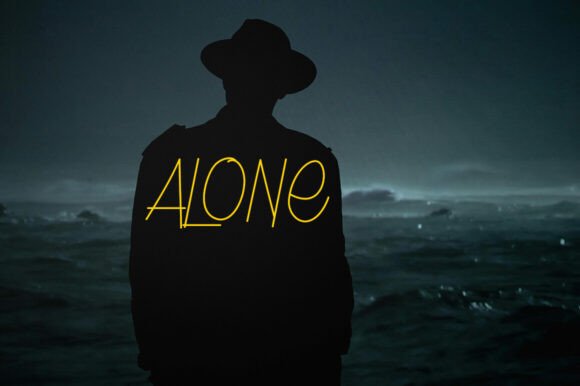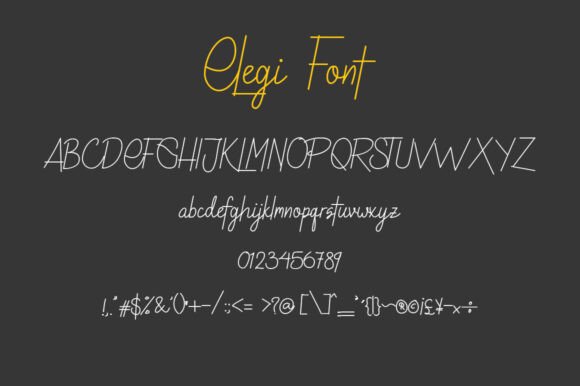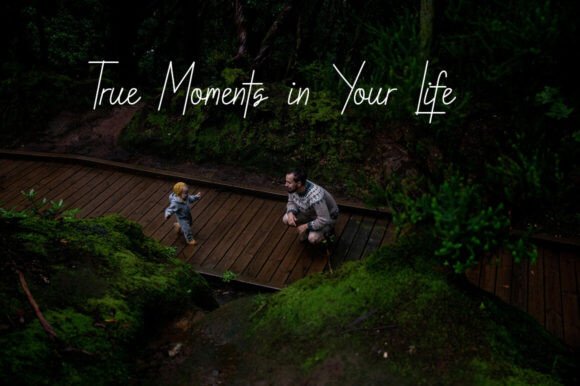
Introduction to Elegi Font
Have you ever found yourself stuck in a creative rut, searching for the perfect font to elevate your design project? I know I have. The struggle is real, but the solution is often just a font away. For designers, finding the right font can be the difference between a good design and a great one. And that’s where Elegi Font comes in – a charming handwritten font that’s about to become your new go-to.
With its effortless flow and elegant simplicity, Elegi Font is the perfect addition to any creative project. Whether you’re crafting greeting cards, logos, journaling pages, or social media posts, this font adds a touch of sophistication while maintaining a friendly and approachable feel. What’s more, Elegi Font is available for a free download, making it an invaluable design resource for designers of all levels.
- Elegi Font is a high-quality design resource ideal for creative projects that require a touch of elegance and sophistication.
- Elegi Font features a unique, cursive script style with a moderate size, ideal for use in titles, headings, and body text at 12-24 points.
Honest Review: Elegi Font
As a designer, I’m always on the lookout for high-quality fonts that can elevate my creative projects. Recently, I came across the Elegi Font, and I’m excited to share my thoughts on this design resource.
- ✨ Elegant and sophisticated design aesthetic that’s perfect for luxury brands or high-end creative projects.
- ✨ Clean and minimalist design that’s easy to read and versatile in its applications.
- ⚠️ Limited character set, which may not be suitable for projects that require a wide range of characters.
- ⚠️ May not be as customizable as some other fonts, which could be a drawback for designers who want to add their own unique touch.
Overall, I’m impressed with the Elegi Font’s high quality and elegant design aesthetic. While it may have some limitations, it’s a great resource for designers who are looking for a sophisticated and professional font to elevate their creative projects. With a transparent background and free download option, it’s definitely worth considering for your next design project.
The Elegi Font is a high-quality design resource ideal for various creative projects, including business cards, logos, and brochures. Its transparent background makes it easy to customize and overlay on different images.
The Elegi Font is commonly used for:
Business cards and logos
Brochures and flyers
Social media posts and graphics
Presentations and documents